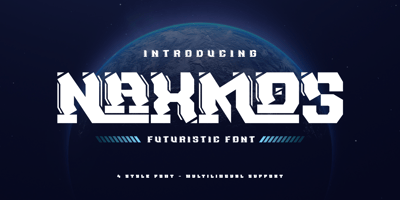
Naxmos Font Family was designed by Rozikan and published by Twinletter. Naxmos contains 4 styles and family package options. Naxmos is a futuristic font with upper- and lowercase letters, a set of numbers, and a galaxy alternative and cyberpunk theme. It has a distinctive futuristic design. Use it to create time-traveling movie posters for futuristic or extraterrestrial productions. Fantastic for creating unique cards and artwork for science fiction fans.This font was created to be used for universal events like game competitions, wall advertisements, and poster designs. Your design can look better with a simple combination. Purchase it right away to enjoy using it ahead of the competition.What’s Included :- File font- All glyphs Iso Latin 1- Alternate, Ligature- Simple installations- We highly recommend using a program that supports OpenType features and Glyphs panels like many Adobe apps and Corel Draw so that you can see and access all Glyph variations.- PUA Encoded Characters – Fully accessible without additional design software.- Fonts include Multilingual support